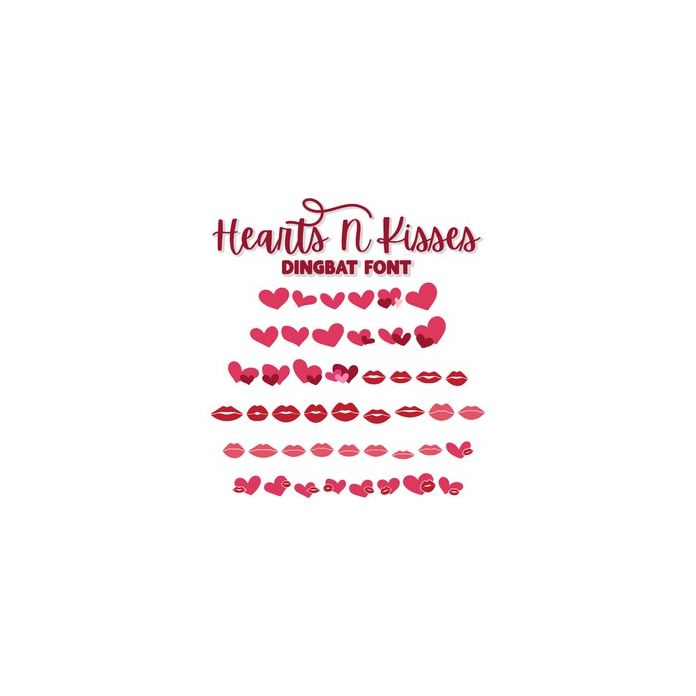
This 46-character dingbat font is perfect for adding flair to your valentine's day projects. It includes loads of hearts and lips to make your projects pop!